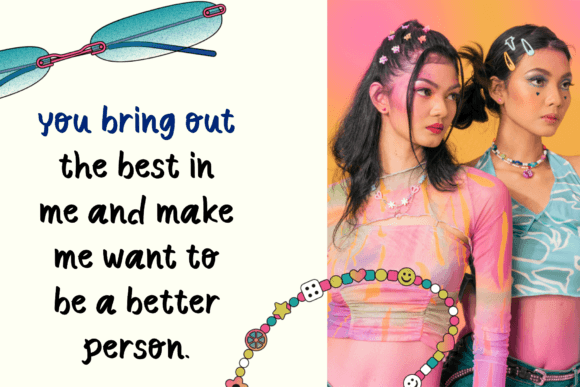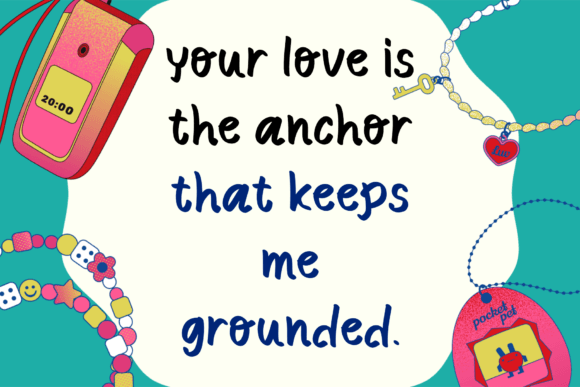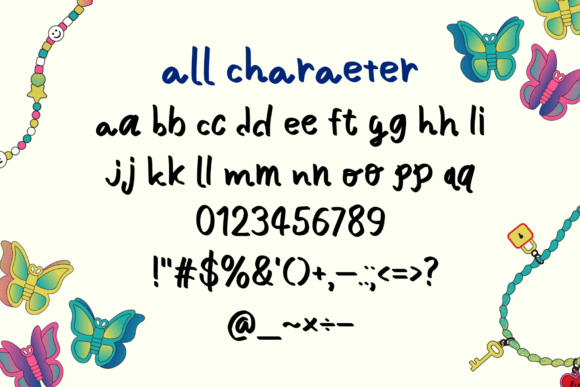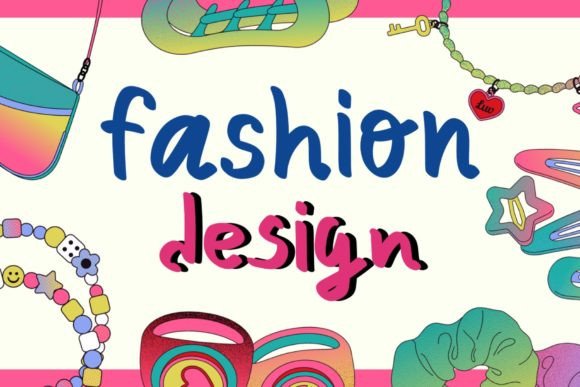
Unlock the Secrets of Elegance: Discover the Fashion Font
Step into the glamorous world of fashion with our stunning Fashion font! Designed to evoke elegance and style, this font is perfect for all your fashion-related projects. From fashion magazines and editorial layouts to clothing labels and fashion branding, the Fashion font will make your designs stand out with its sleek and sophisticated letterforms.
The Essence of Fashion Font
With its graceful curves, refined details, and modern aesthetics, this font will elevate your typography to new heights. The Fashion font is crafted to capture the essence of high-end fashion, making it an ideal choice for designers who want to create luxurious and eye-catching designs. Whether you’re designing a fashion logo, creating fashion show invitations, or crafting trendy social media graphics, the Fashion font will add a touch of sophistication and allure to your work.
The Fashion font is incredibly versatile, making it suitable for a wide range of design applications. Here are some ideas to get you started:
- Fashion Magazines and Editorials: Create stunning headlines and titles that will make your fashion magazine or editorial stand out on the newsstand.
- Clothing Labels and Branding: Develop a strong brand identity with the Fashion font, perfect for clothing labels, packaging, and marketing materials.
- Fashion Show Invitations: Design elegant and sophisticated invitations for fashion shows, runway events, or product launches.
- Social Media Graphics: Craft trendy and engaging social media graphics, such as Instagram posts, Facebook covers, or Twitter headers, that will make your fashion brand shine.
- Logos and Wordmarks: Create a lasting impression with a custom logo or wordmark designed with the Fashion font, perfect for fashion brands, boutiques, or designers.
Key Features of the Fashion Font
The Fashion font boasts a range of features that make it the perfect choice for fashion designers and crafters. Some of its key features include:
- Sleek and Sophisticated Letterforms: The Fashion font features elegant and refined letterforms that exude style and sophistication.
- Modern Aesthetics: The font’s modern design ensures that your typography will be fresh and on-trend, perfect for fashion brands that want to stay ahead of the curve.
- Graceful Curves and Refined Details: The font’s curves and details are carefully crafted to create a luxurious and high-end feel.
Why Choose the Fashion Font?
With so many fonts available, why choose the Fashion font for your next project? Here are just a few reasons:
- Instant Recognition: The Fashion font is designed to grab attention and make a lasting impression, ensuring that your designs will be noticed.
- High-Quality Typography: The font is crafted to deliver high-quality typography that will elevate your designs and make them look professional.
Tips for Using the Fashion Font
To get the most out of the Fashion font, here are some tips to keep in mind:
- Experiment with Font Sizes: Play around with different font sizes to create visual interest and hierarchy in your designs.
- Pair with Complementary Fonts: Combine the Fashion font with complementary fonts to create a unique and stylish typography combination.
- Pay Attention to Kerning: Make sure to adjust the kerning to ensure that your text looks balanced and visually appealing.
| Font Name | Fashion Font |
| Author | MyFontsShop |
The Fashion font is the perfect choice for designers who want to create stunning and sophisticated designs that capture the essence of high-end fashion. With its sleek and refined letterforms, modern aesthetics, and endless design possibilities, this font is sure to become a staple in your design toolkit. So why wait? Unlock the secrets of elegance and style with the Fashion font today!